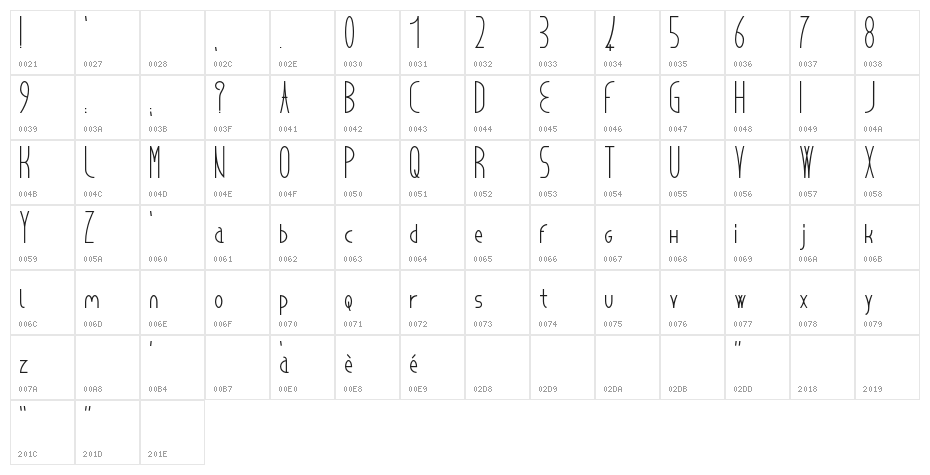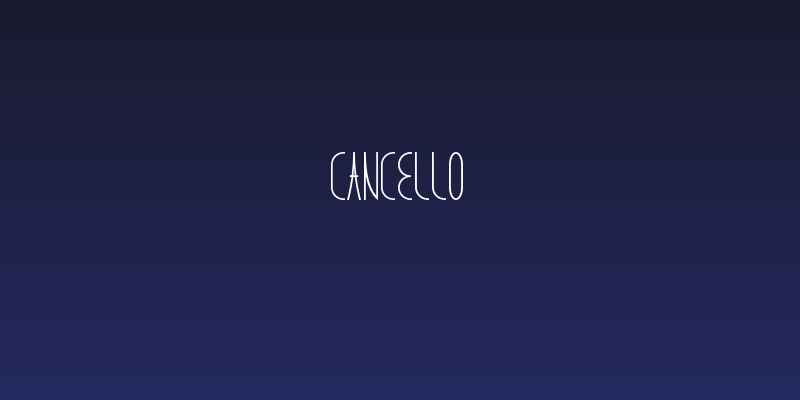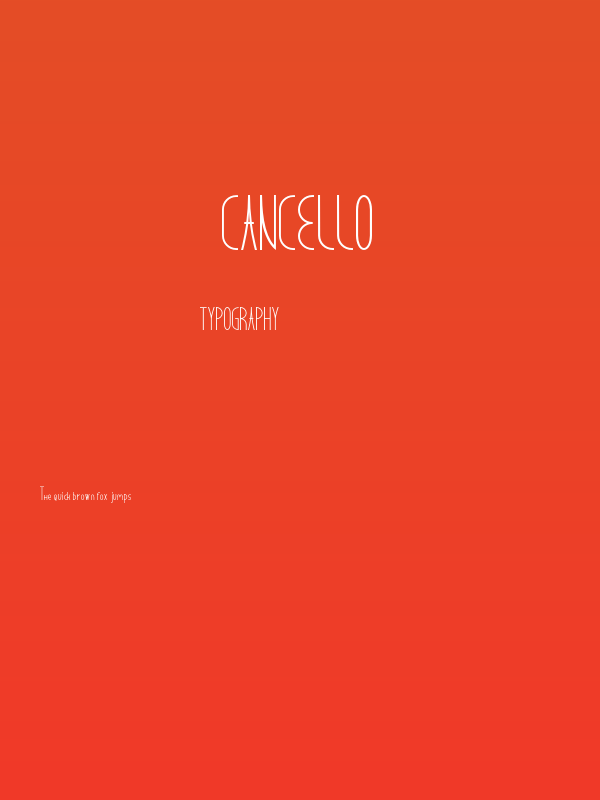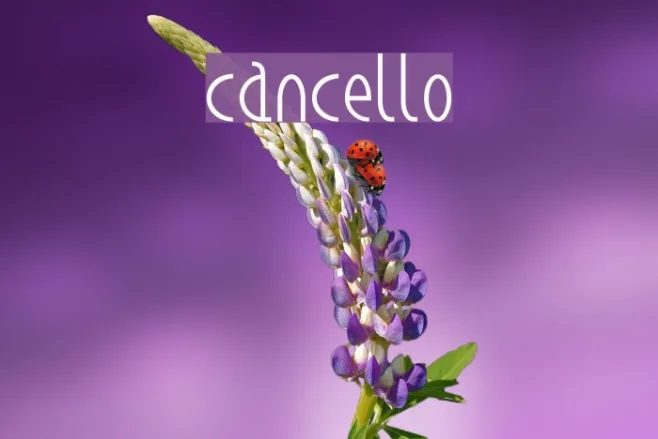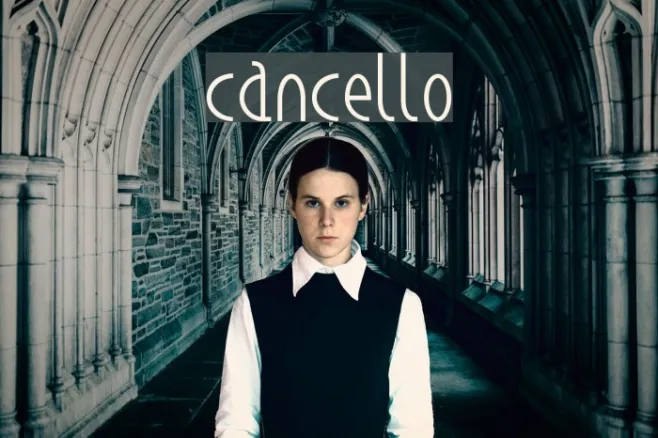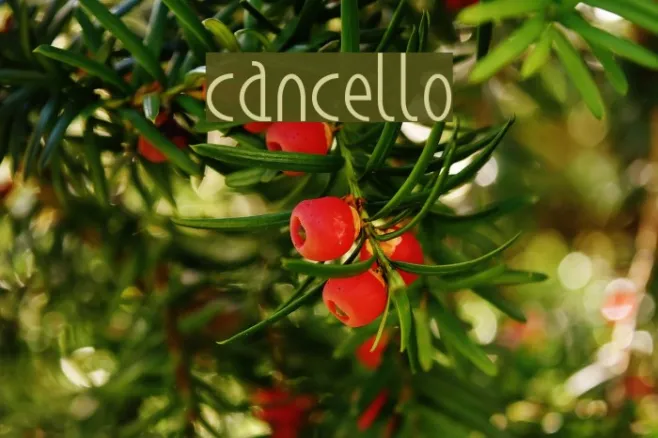
cancello Font
cancello Description
This font features a tall, narrow design with an elegant and modern aesthetic. The uppercase letters are particularly elongated, giving a sophisticated and stylish appearance. The lowercase letters maintain a consistent height with a slightly rounded form, adding a touch of softness to the overall look. The numerals are distinct and follow the same elongated style, ensuring readability while maintaining the font's unique character. The special characters are designed to complement the overall style, with a sleek and contemporary feel. This font is perfect for projects that require a modern and artistic touch.
| Proposed Projects | Ideal for fashion magazines, luxury branding, modern art posters, and elegant invitations. |